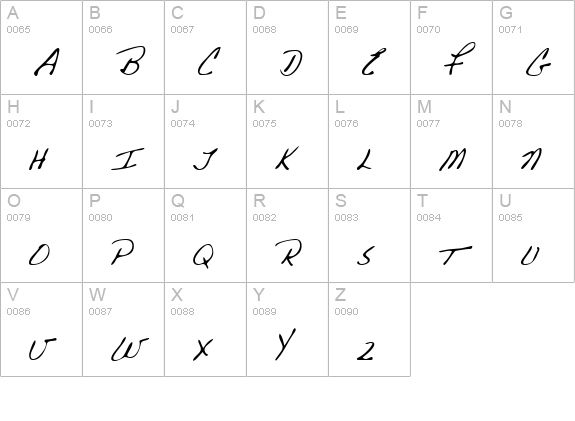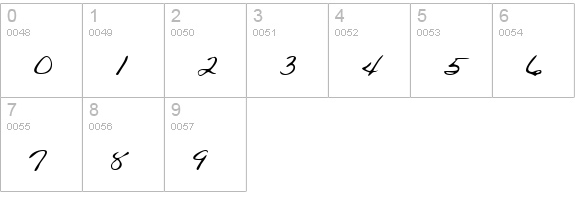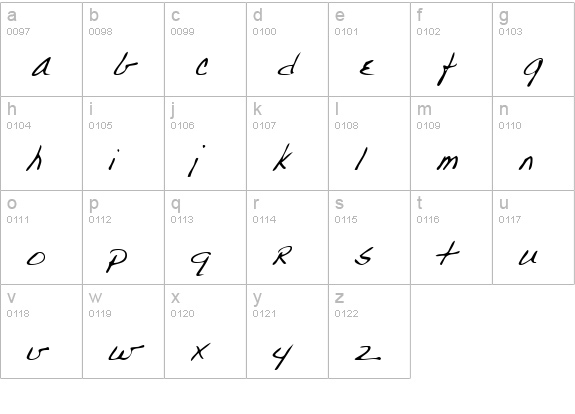
ParkersHand Regular Font Details
ParkersHand Regular is the standard, neutral variant in the ParkersHand typeface family \xE2\x80\x94 well suited to general body text, paragraphs, and standard typographic work.
ParkersHand Regular is a delightful and charming font that captures the essence of handwritten script with its flowing, organic strokes. This font is perfect for adding a personal touch to your designs, whether it's a heartfelt greeting card, a playful logo, or a handwritten-style website header. With its slightly irregular letterforms and gentle curves, ParkersHand Regular exudes a sense of warmth and friendliness. Its natural, relaxed appearance creates a sense of authenticity and approachability that will instantly connect with your audience. What makes ParkersHand Regular even more appealing is that it is freely available to download at FontsMarket.com. This means that you can easily access and use this beautiful font in your projects without any limitations or restrictions. Whether you're a professional designer or a creative enthusiast, this free font offers you the opportunity to add a touch of personal flair to your work without breaking the bank. So why wait? Download ParkersHand Regular now from FontsMarket.com and unleash your creativity with this versatile, free font. Let your imagination run wild as you explore the endless possibilities that this font has to offer. Whether you're designing for print or digital media, ParkersHand Regular will bring a sense of authenticity and charm to your projects that will leave a lasting impression on your audience.